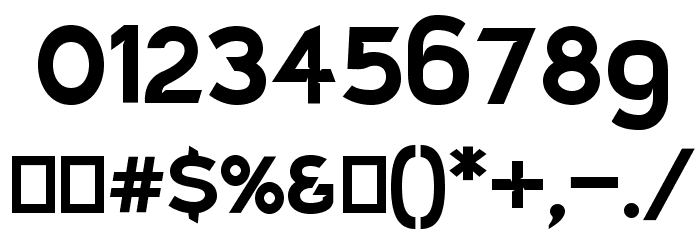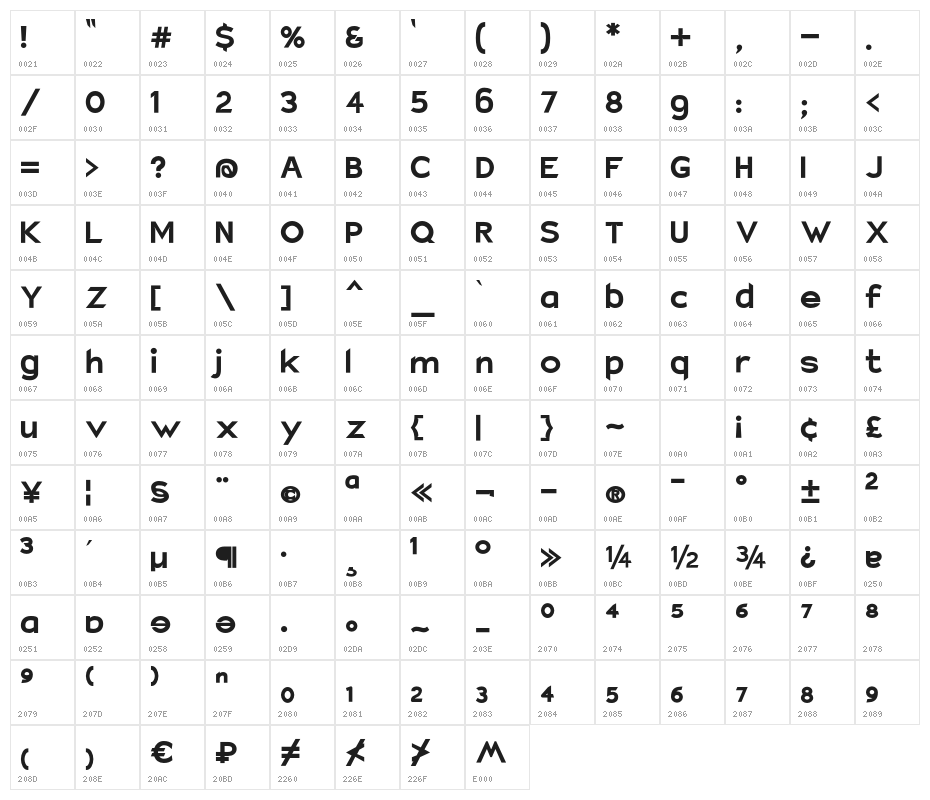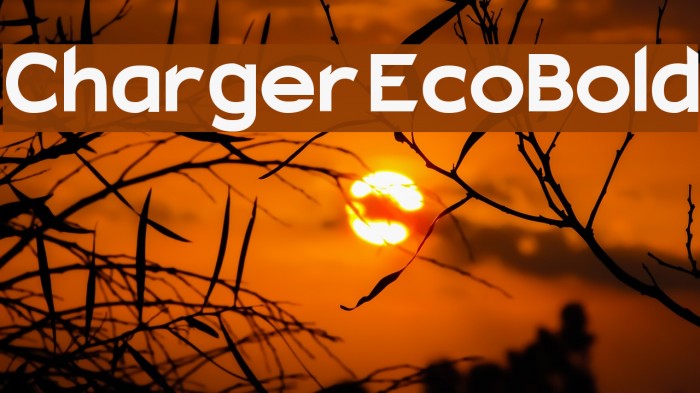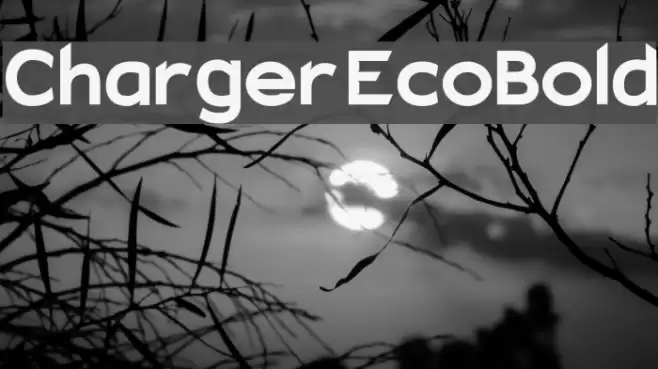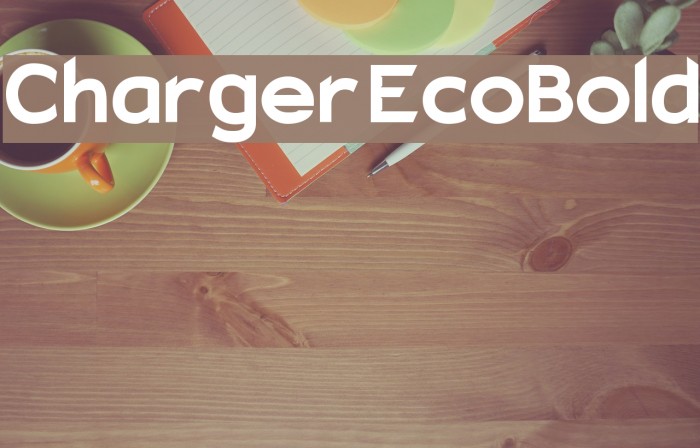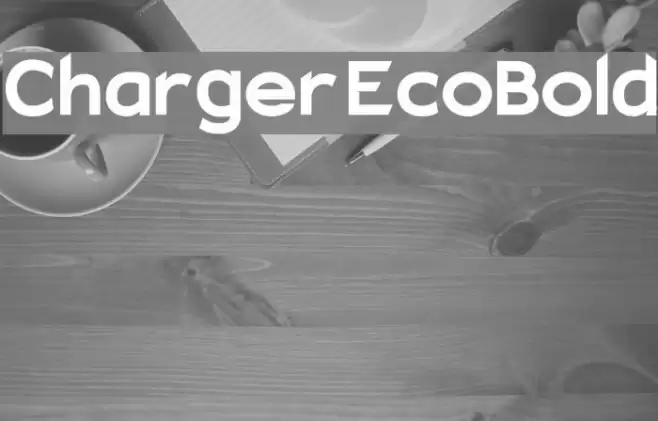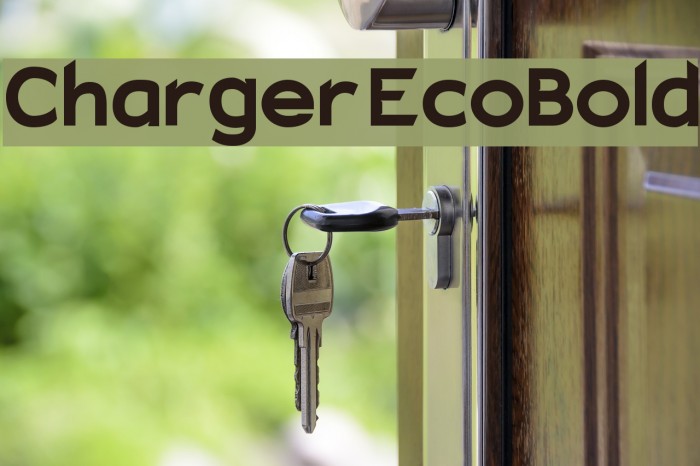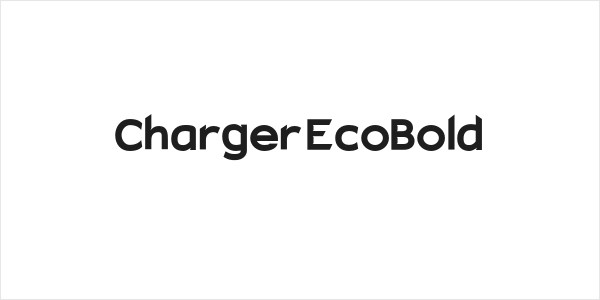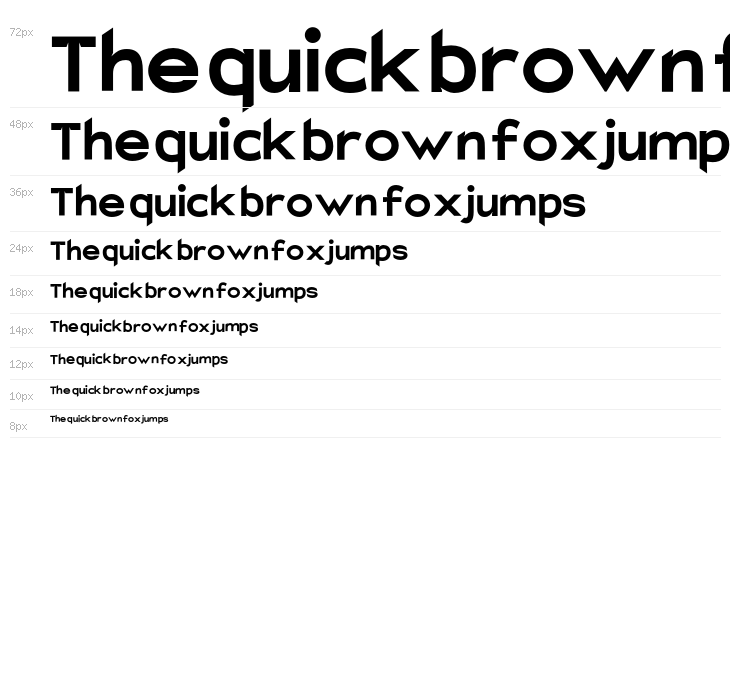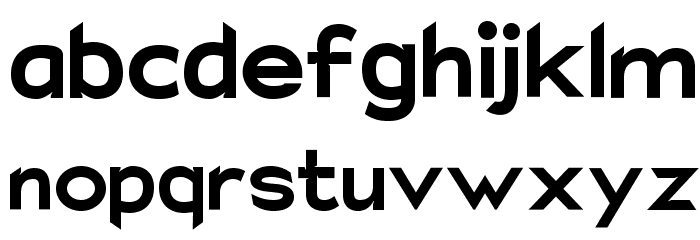
Charger EcoBold Font
Charger EcoBold Description
This font features a bold and modern sans-serif style with clean, geometric lines. The uppercase letters are strong and assertive, while the lowercase letters maintain a consistent and harmonious flow. The numerals are clear and easily distinguishable, making them suitable for various applications. Special characters are designed with the same boldness, ensuring uniformity across all glyphs. The overall design is sleek and contemporary, making it ideal for projects that require a modern and professional look.
| Proposed Projects | Ideal for branding, advertising, headlines, and digital media that require a strong and modern appearance. |